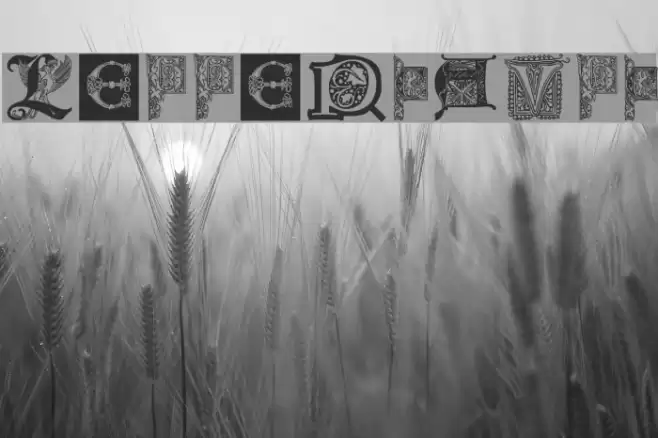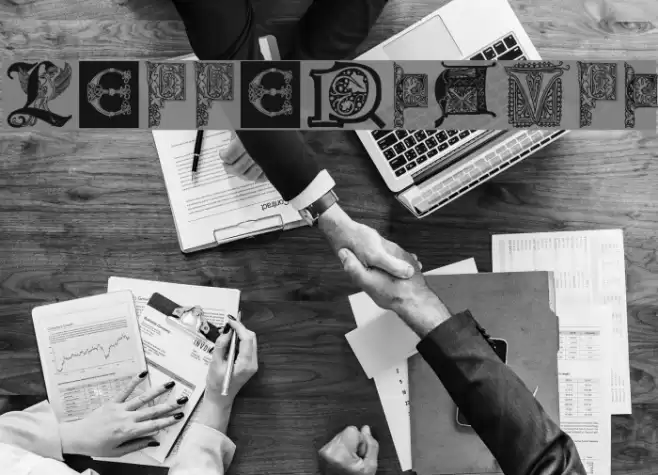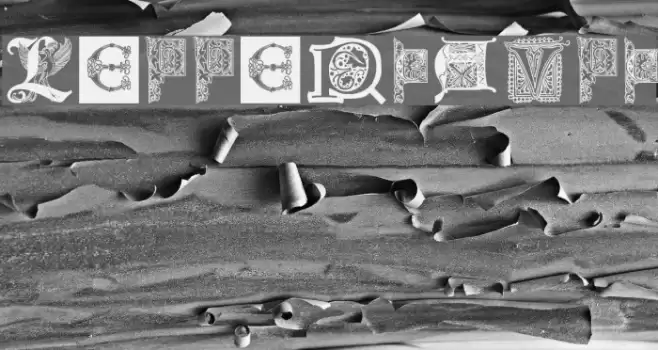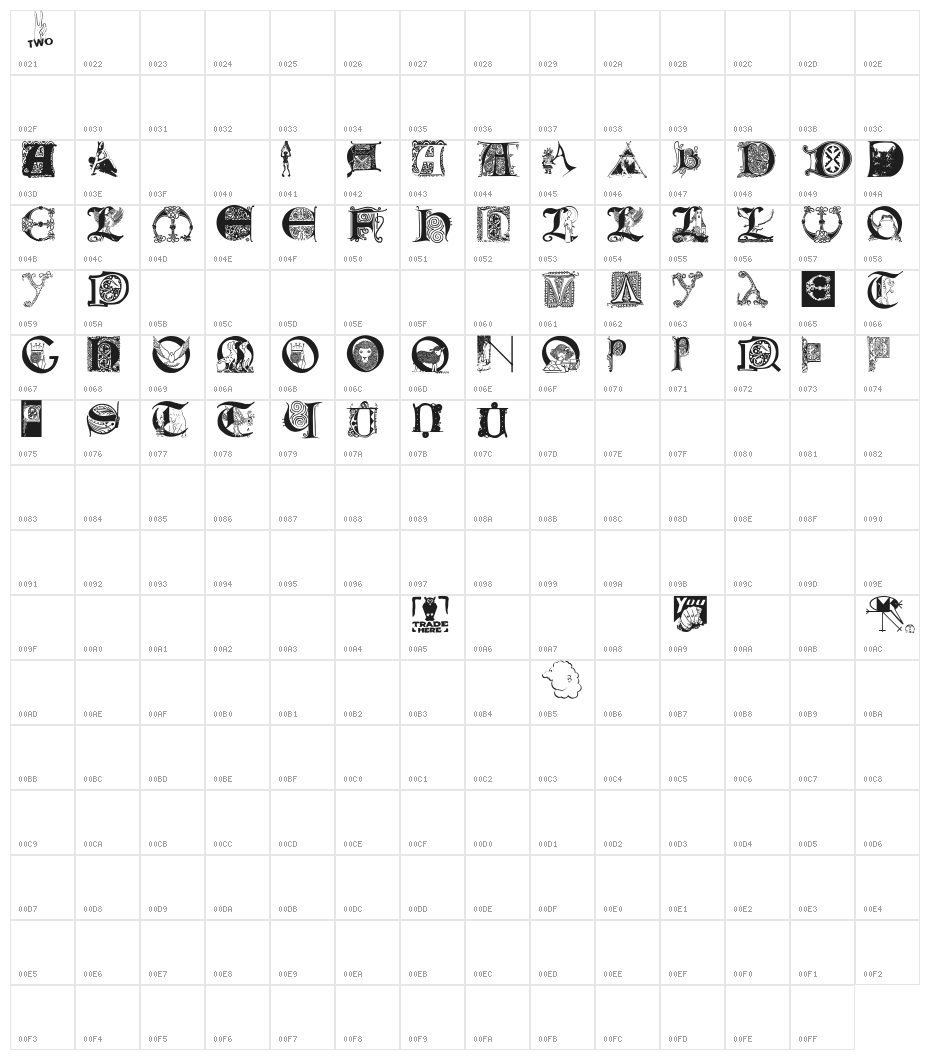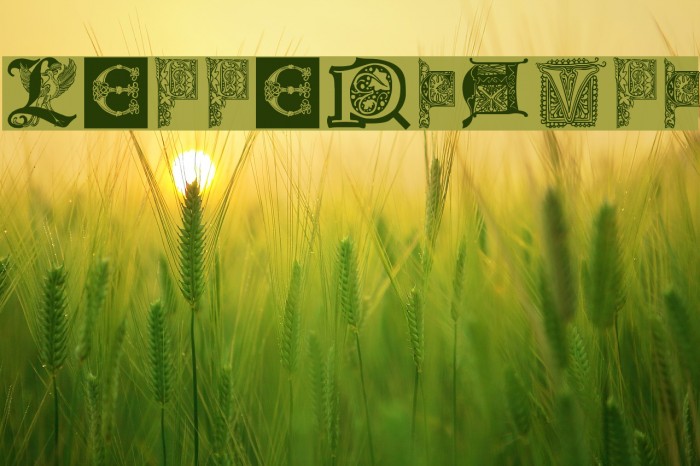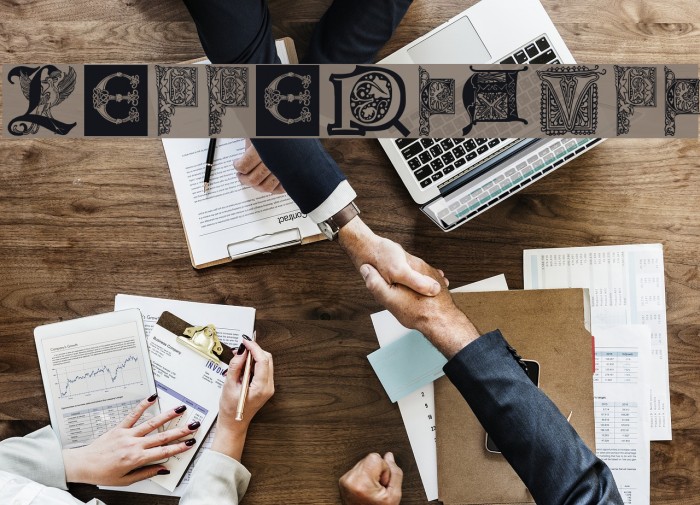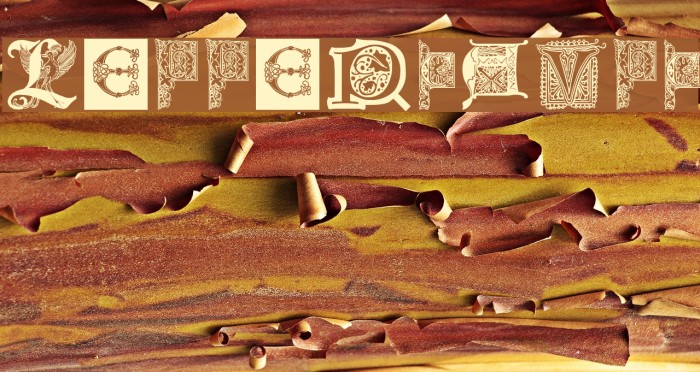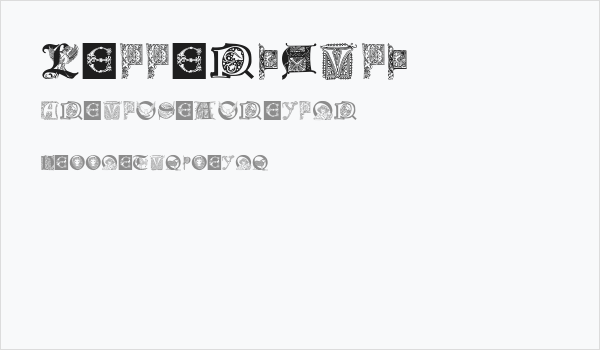
LettersBats Font
LettersBats Description
This font is a highly decorative and intricate typeface, featuring elaborate designs within each letter. Each character is adorned with unique illustrations, ranging from floral patterns to mythical creatures, creating a visually rich and ornate appearance. The letters are bold and artistic, making them stand out with their detailed embellishments. This font is not designed for readability in large blocks of text but rather for artistic expression and visual impact. The style is reminiscent of illuminated manuscripts, with a whimsical and fantastical flair that captures attention.
An ornate and decorative font with intricate illustrations in each letter from Uncategorized fonts.
- Proposed Projects: Ideal for artistic projects, fantasy-themed designs, book covers, posters, and any creative work that requires a touch of whimsy and visual interest.
- Use Case: Logos, Headlines, Artistic projects